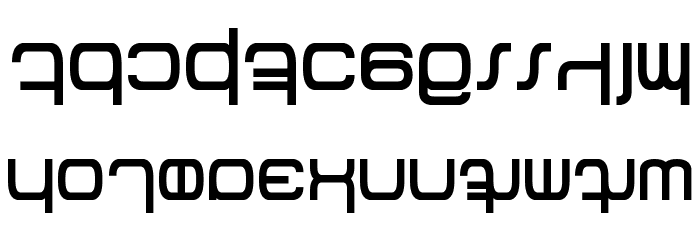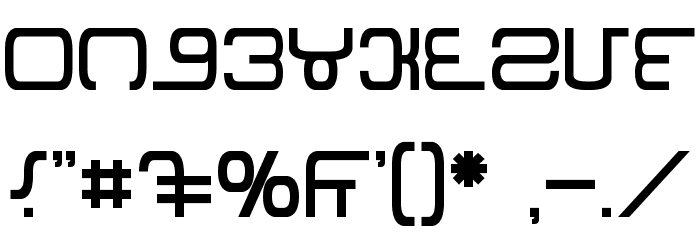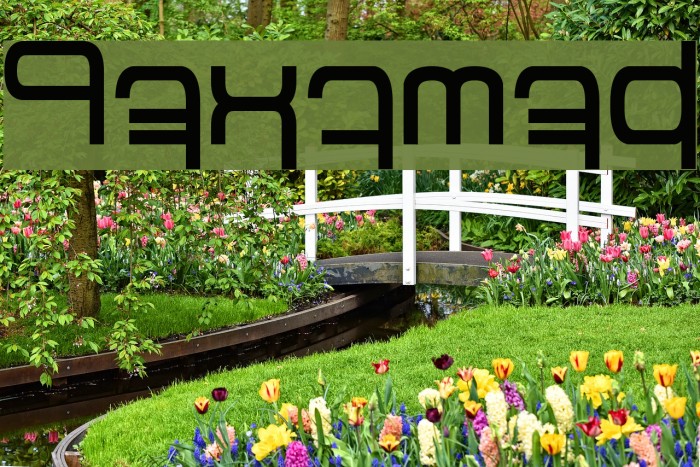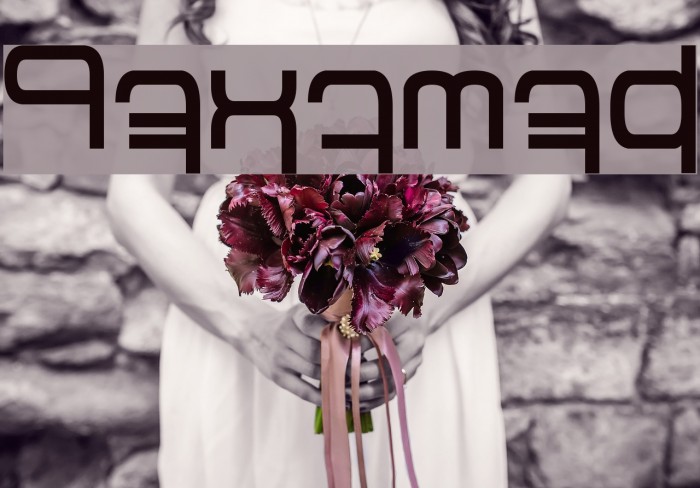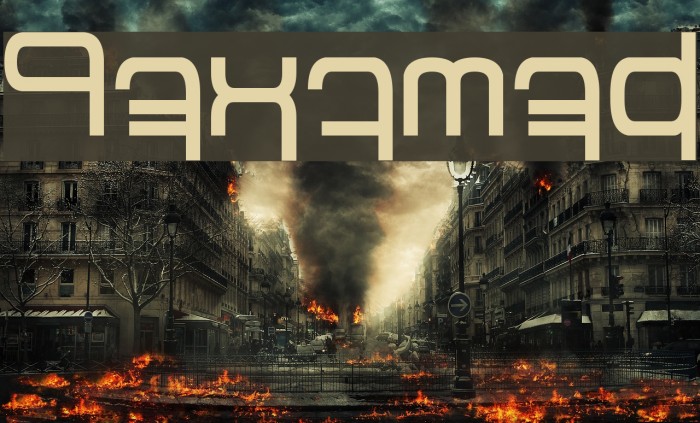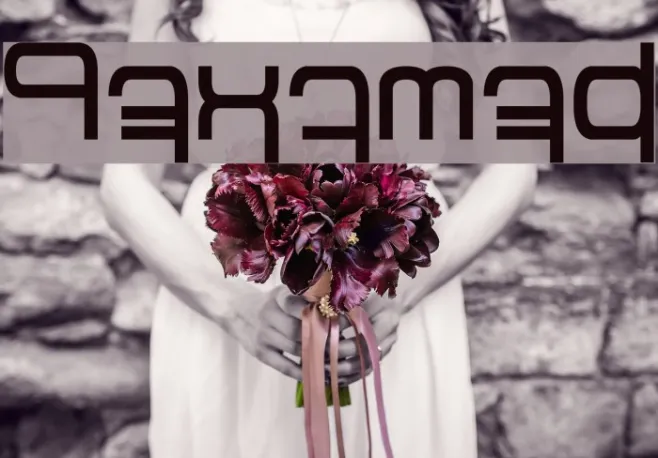
Betazed Font
This font features a futuristic and geometric design, characterized by its unique and unconventional letterforms. The characters are composed of bold, angular lines with rounded edges, creating a distinct and modern appearance. The uppercase and lowercase letters share a similar structure, emphasizing symmetry and balance. The numerals and special characters are crafted to match the overall aesthetic, maintaining the same bold and angular style. This font stands out with its innovative and eye-catching design, making it suitable for projects that require a modern and tech-inspired look.
A futuristic, geometric font with bold, angular lines and rounded edges.
- Proposed Projects: Ideal for sci-fi themed designs, technology branding, video game titles, and modern digital interfaces.
- Use Case: Headlines, Logos, Digital interfaces